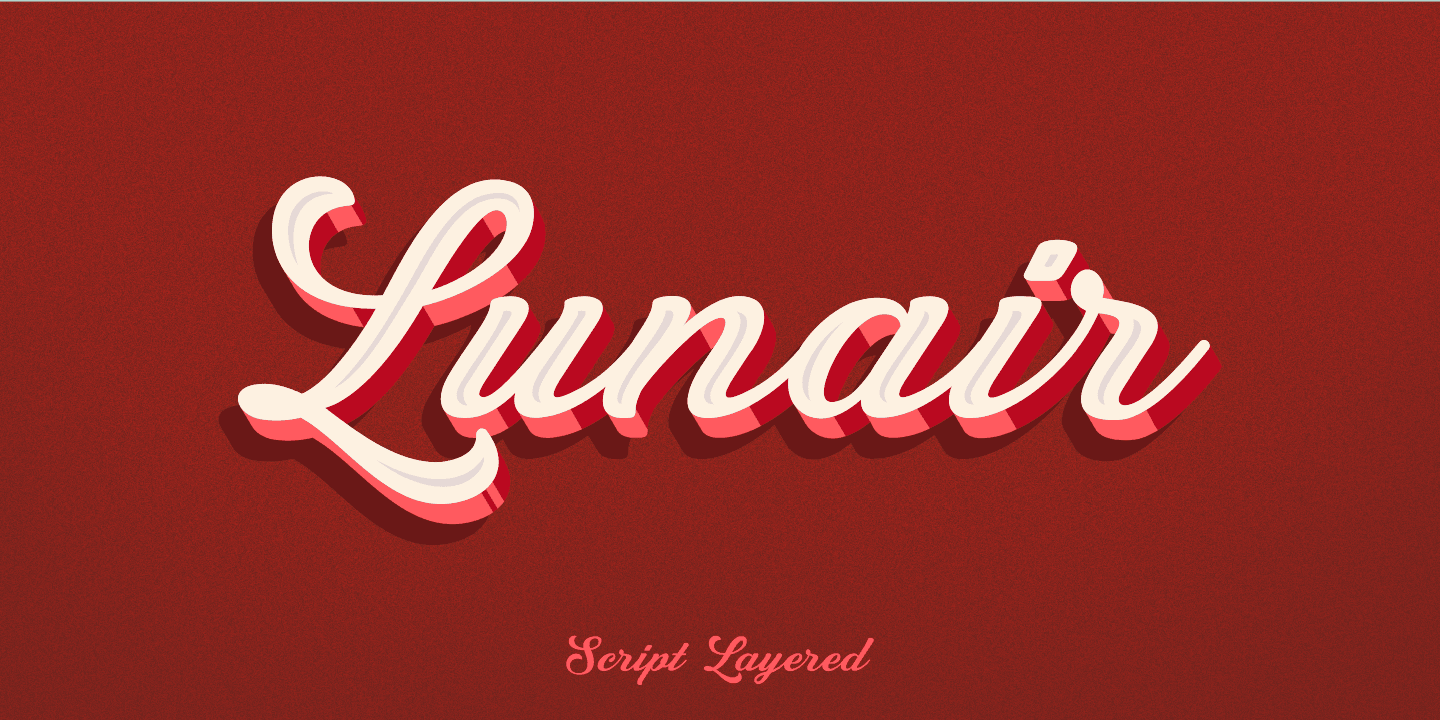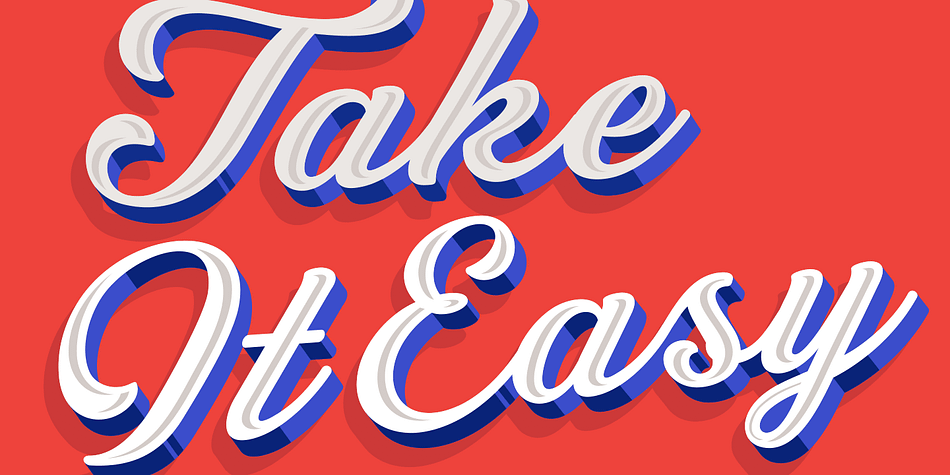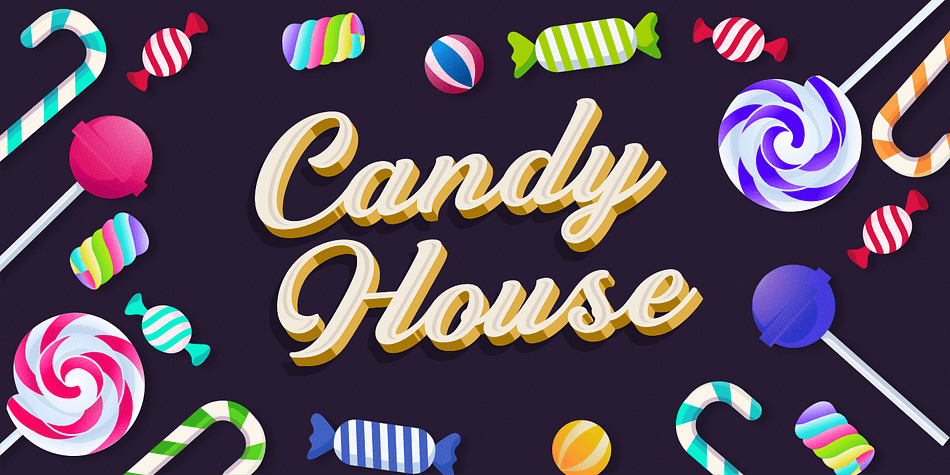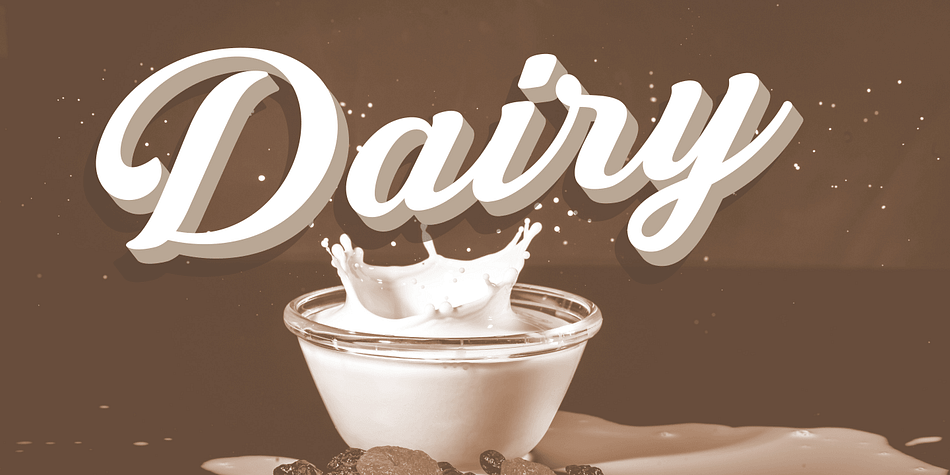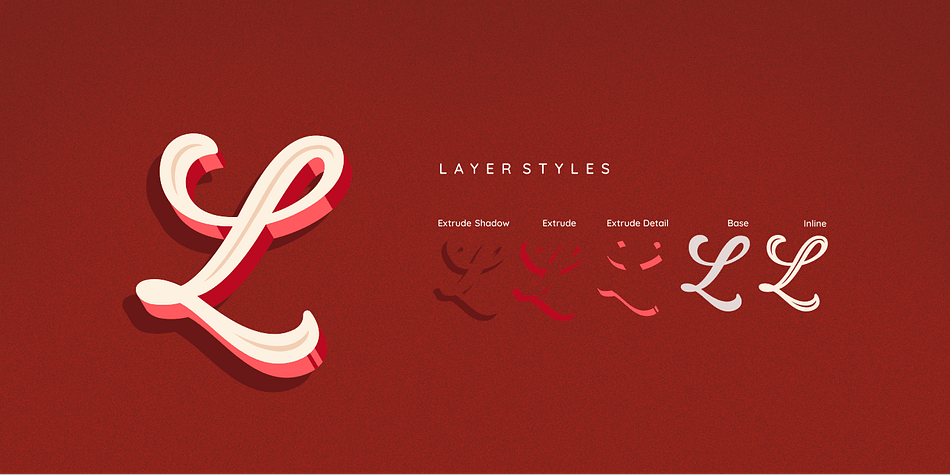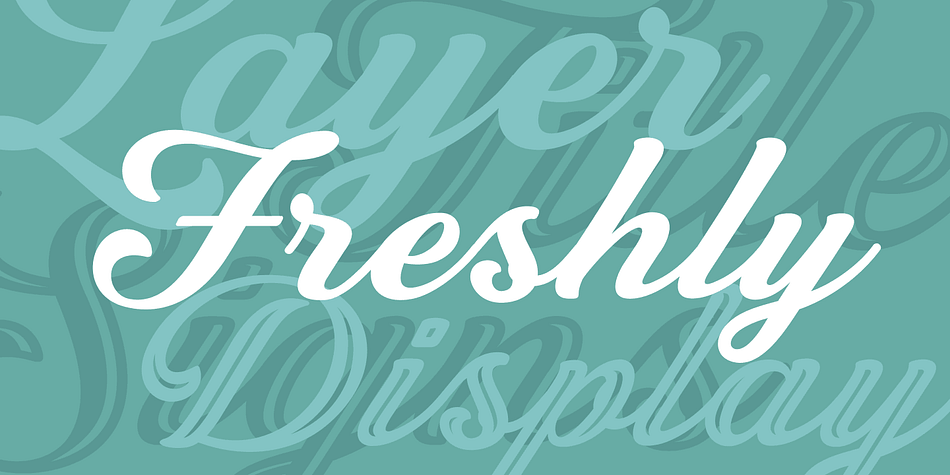
Designed by Cucu Supriyadi, Lunair is a brush script font family. This typeface has six styles and was published by Seventh Imperium.
Lunair is a display script layered font. Feature the modern script layered.
The base layer is regular; add an extrude and extrude shadow to create a dimensional look.
The font styles can be mixed and matched together to create different style details.
There are several fonts with a stand-alone script Base, Emboss and Inline.
| Style | Brush Script |
| Designer | Cucu Supriyadi |